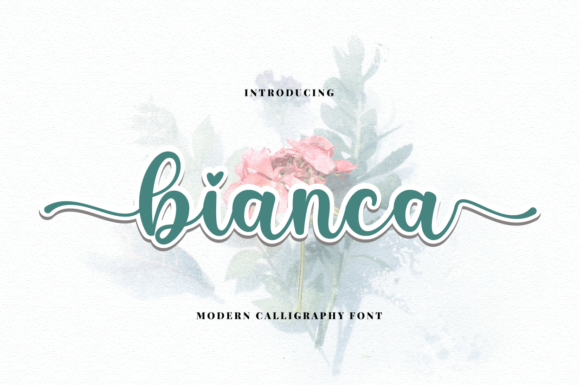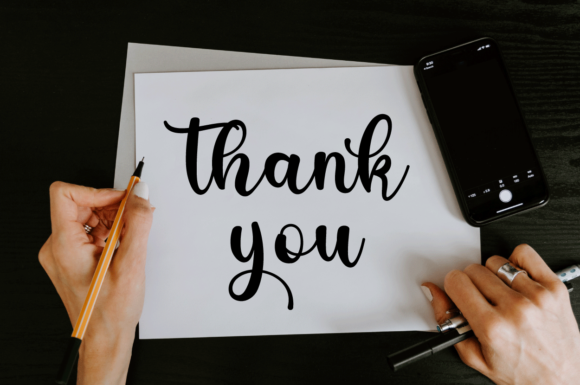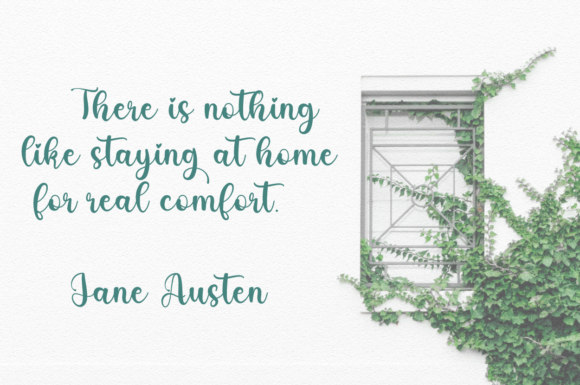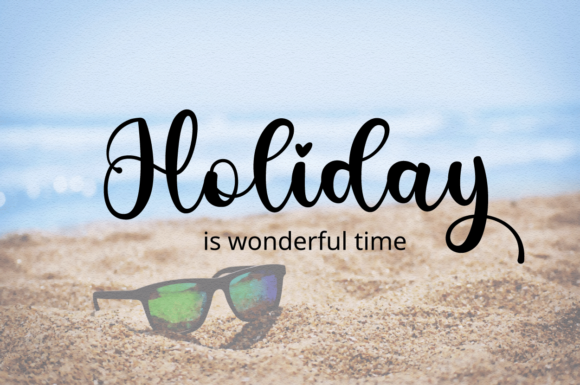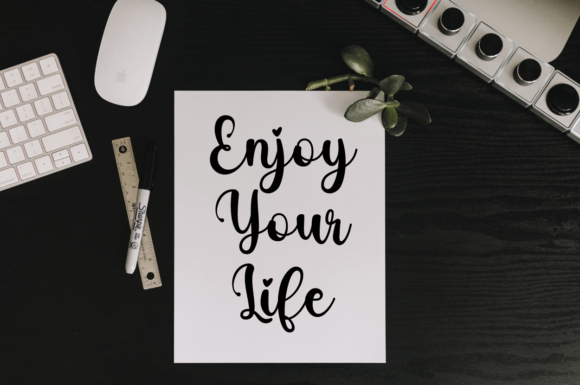
Bianca Font
About Bianca Font
Bianca a modern script calligraphy style. It looks beautiful on invitation like greeting cards, branding materials, business cards, quotes, posters, and more! This font is PUA encoded which means you can access all of the glyphs and swashes with ease!